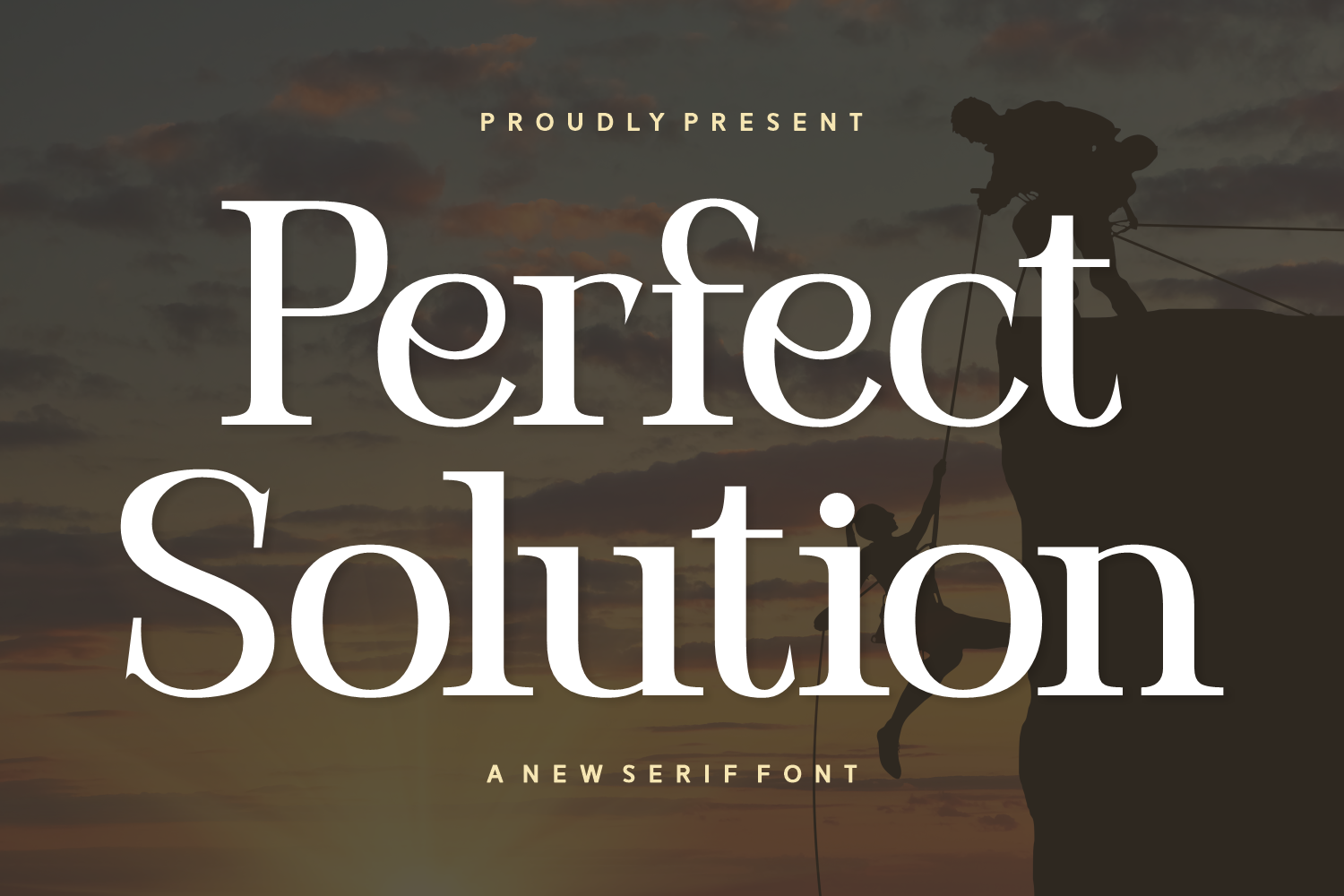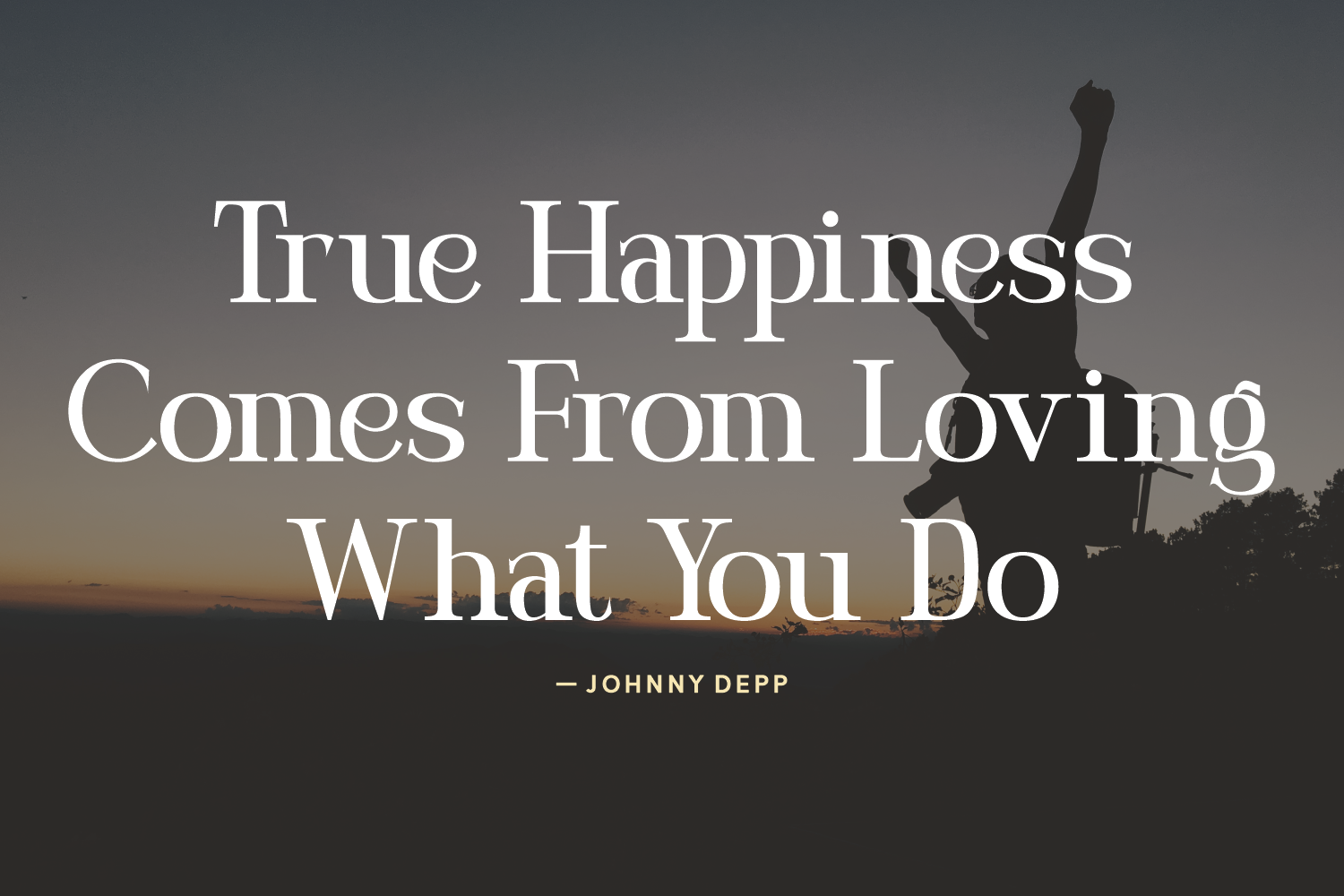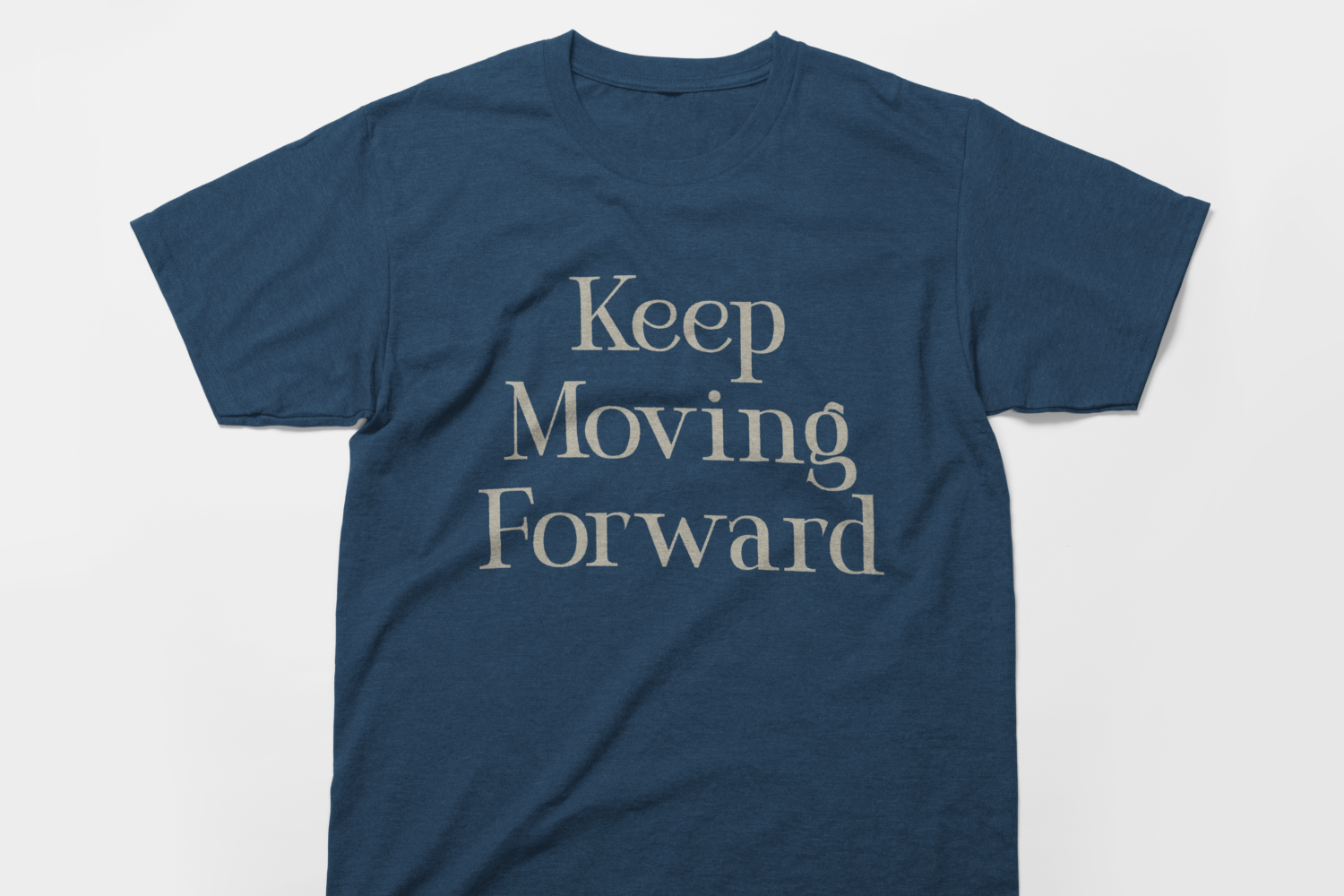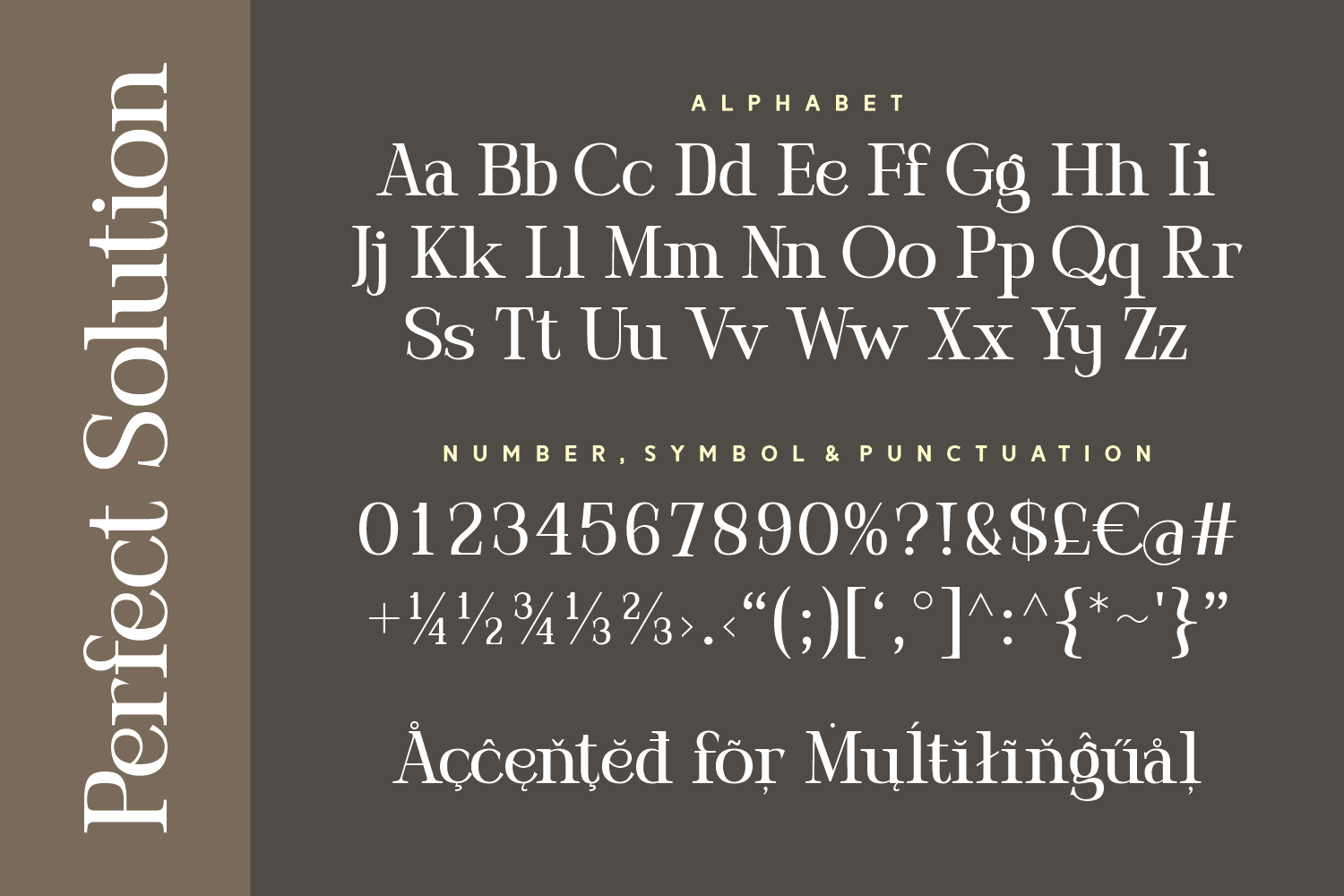
Perfect Solution
Perfect Solution is a refined serif typeface that blends modern clarity with classic charm. Characterized by its strong contrast, elegant serifs, and balanced letterforms, this font delivers an authoritative yet stylish presence.
Perfect Solution includes a full character set, multilingual accents, numerals, and punctuation, making it both beautiful and functional. Its subtle details and timeless elegance ensure that your message always looks polished and confident.